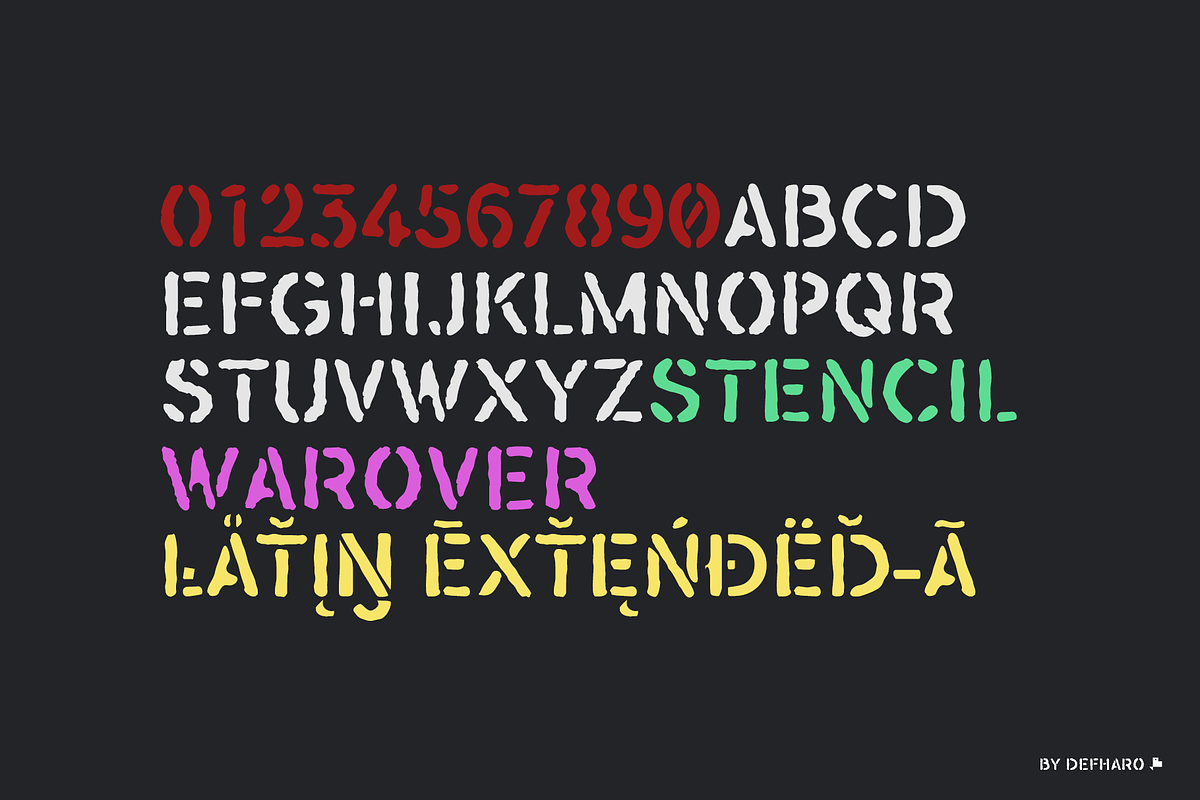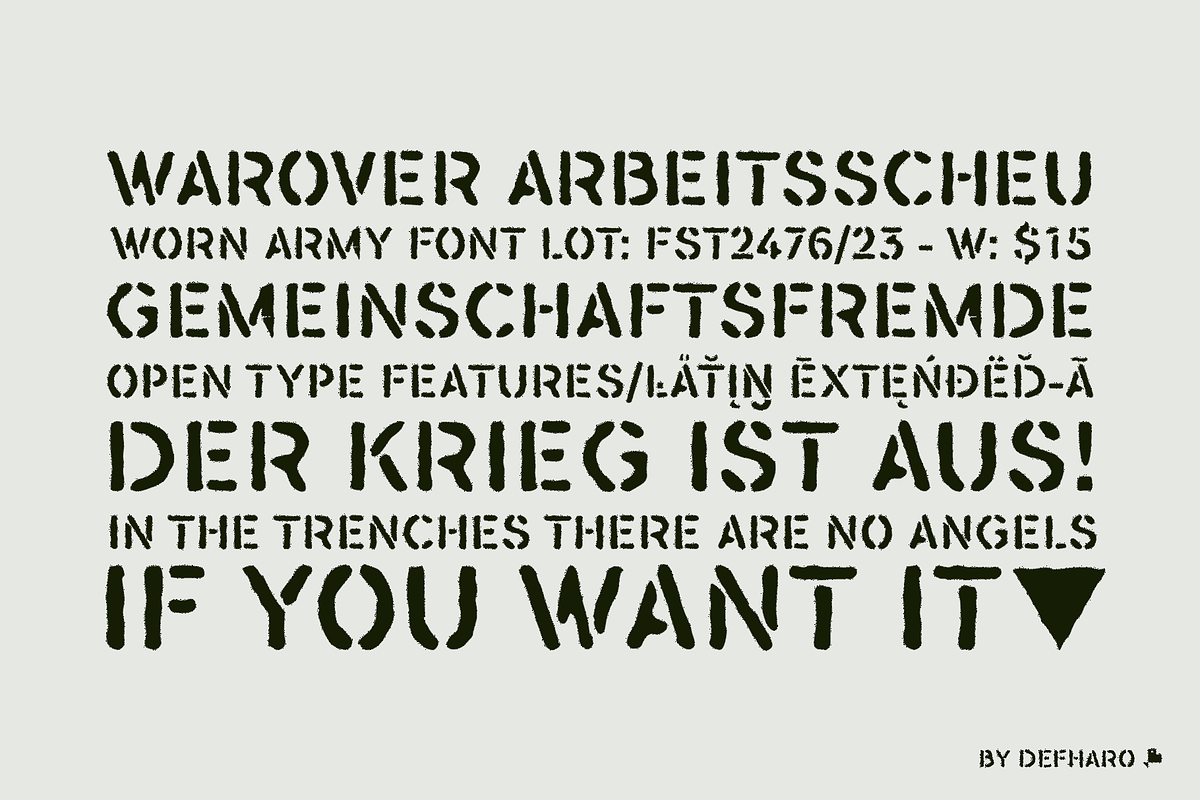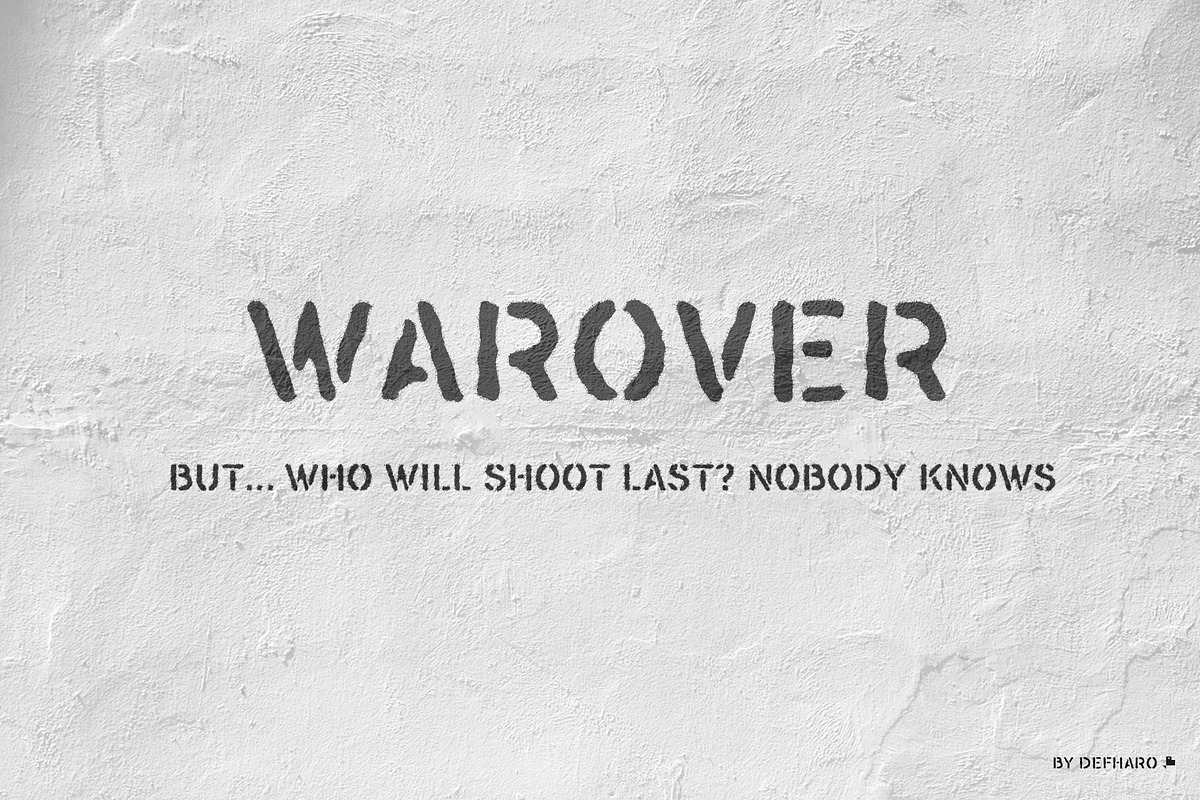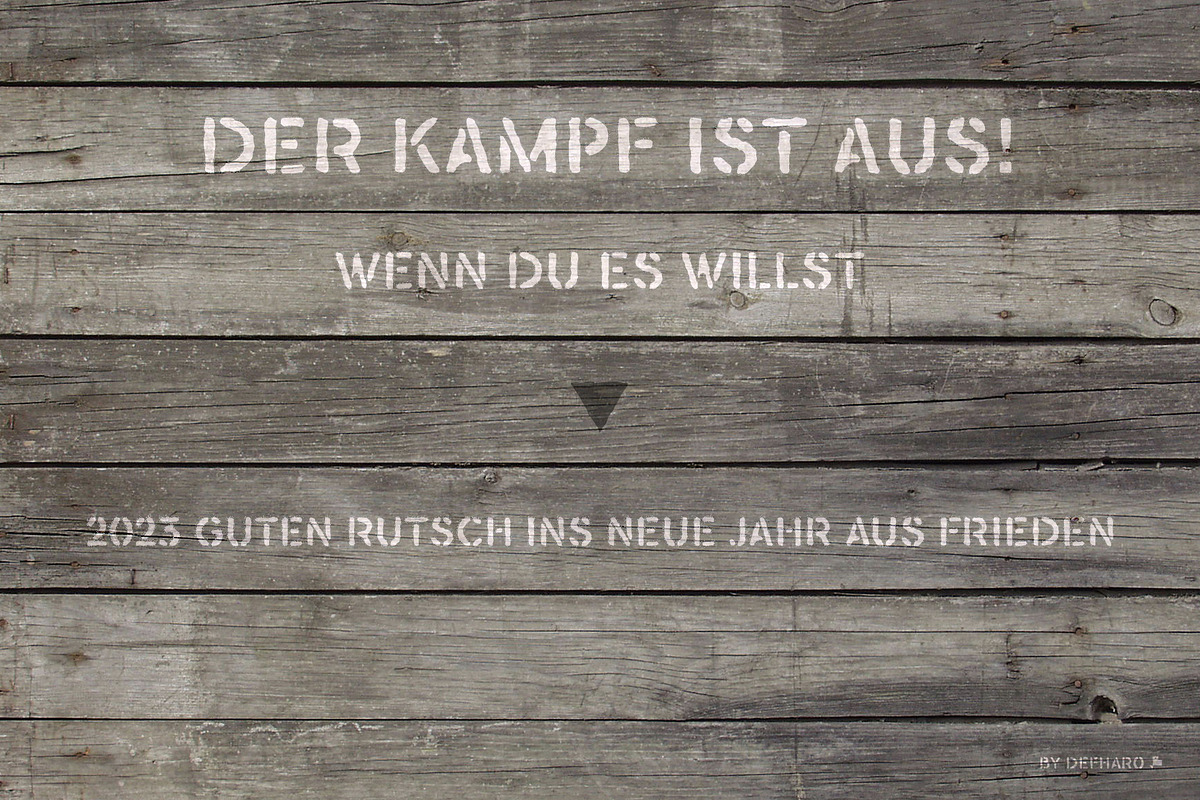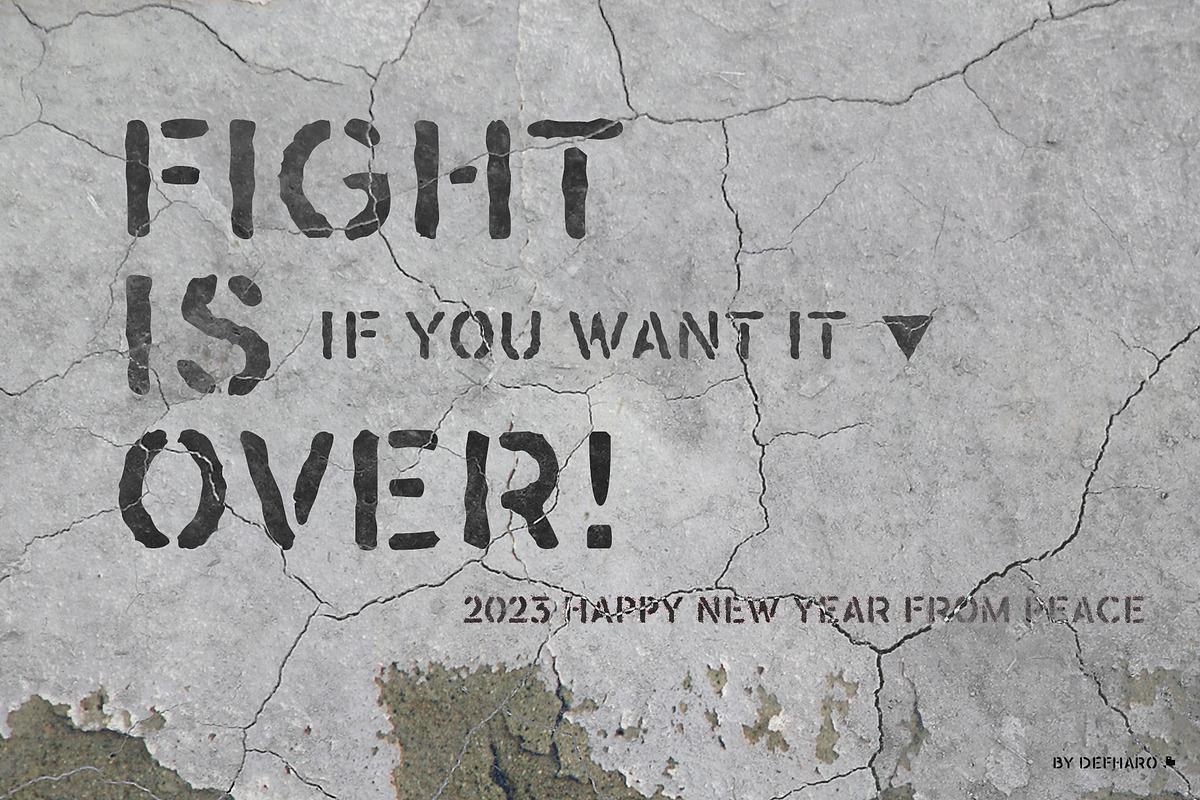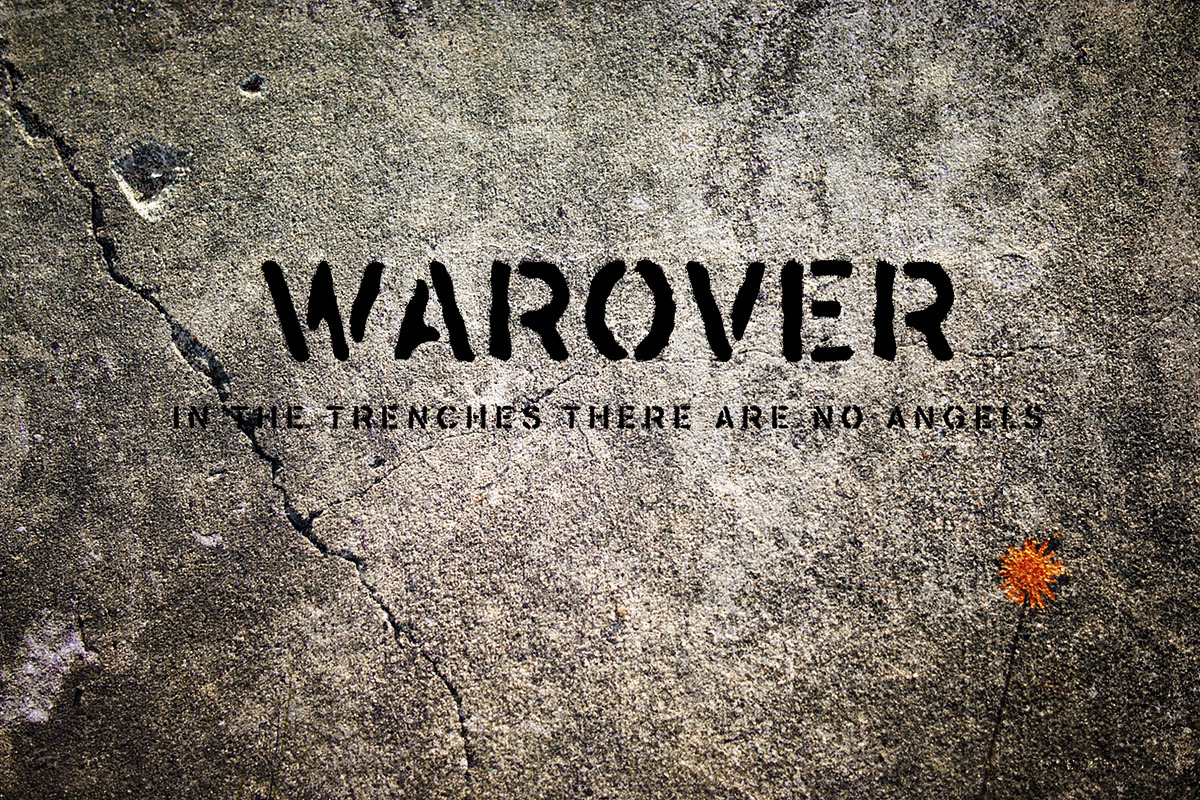
Warover a worn stencil typeface
Warover is a stencil typeface worn by time, use and war. Warover is based on my previous Flamante Stencil typeface, it includes various sets of numbers, the symbol for bitcoin and other cryptocurrencies. An all-caps font for headlines and branding that demand maximum legibility and where careful Kerning configuration makes reading fluent in this typography. Warover has full support for all languages derived from Latin (Latin Extended-A) and advanced OpenType functions for numerals, fractions, ordinals, etc.
- Warover stencil includes the symbol of Bitcoin and currency symbols.
- OpenType Features: Additional languages, All Alternates, Bitcoin, Contextual Alternates, Denominators, Extended Fractions, Historical Forms, Inferiors, Kerning, Localized Forms, Numerators, Oldstyle Figures, Ordinals, Scientific Inferiors, Slashed Zero, Subscript, Superior letters, Superiors, Superscript.